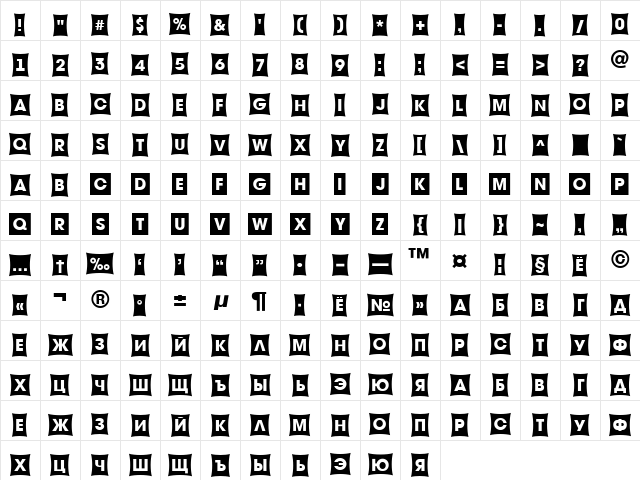
a_AvanteTitulCmFsh Regular Free Font
a_AvanteTitulCmFsh Regular
Complete a_AvanteTitulCmFsh Regular glyph index. Displaying only characters natively supported by a_AvanteTitulCmFsh Regular font.
Design Context for a_AvanteTitulCmFsh
a_AvanteTitulCmFsh is a composed and adaptable typeface that performs quietly and consistently across a wide range of design contexts.